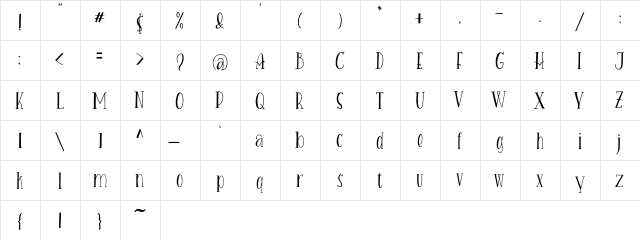
Heaven Wanders DEMO Regular
| Foundry | Letterhend Studio |
| Designer | Eko Fitriono |
Design Context for Heaven Wanders DEMO Typeface
Heaven Wanders DEMO is a composed and adaptable typeface that performs quietly and consistently across a wide range of design contexts.